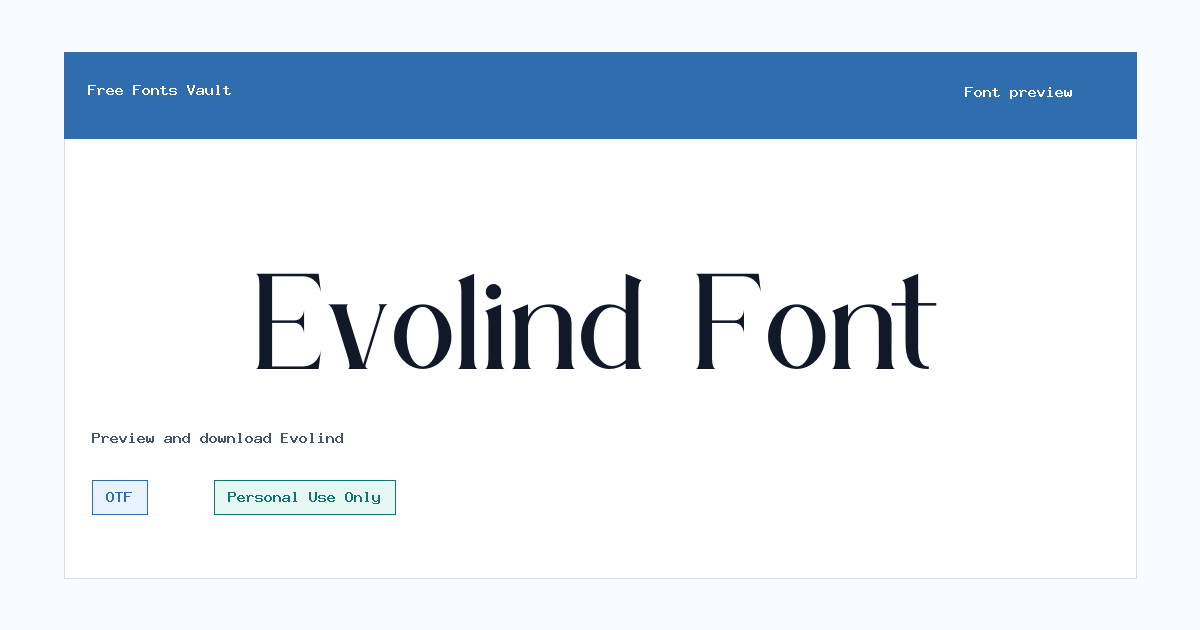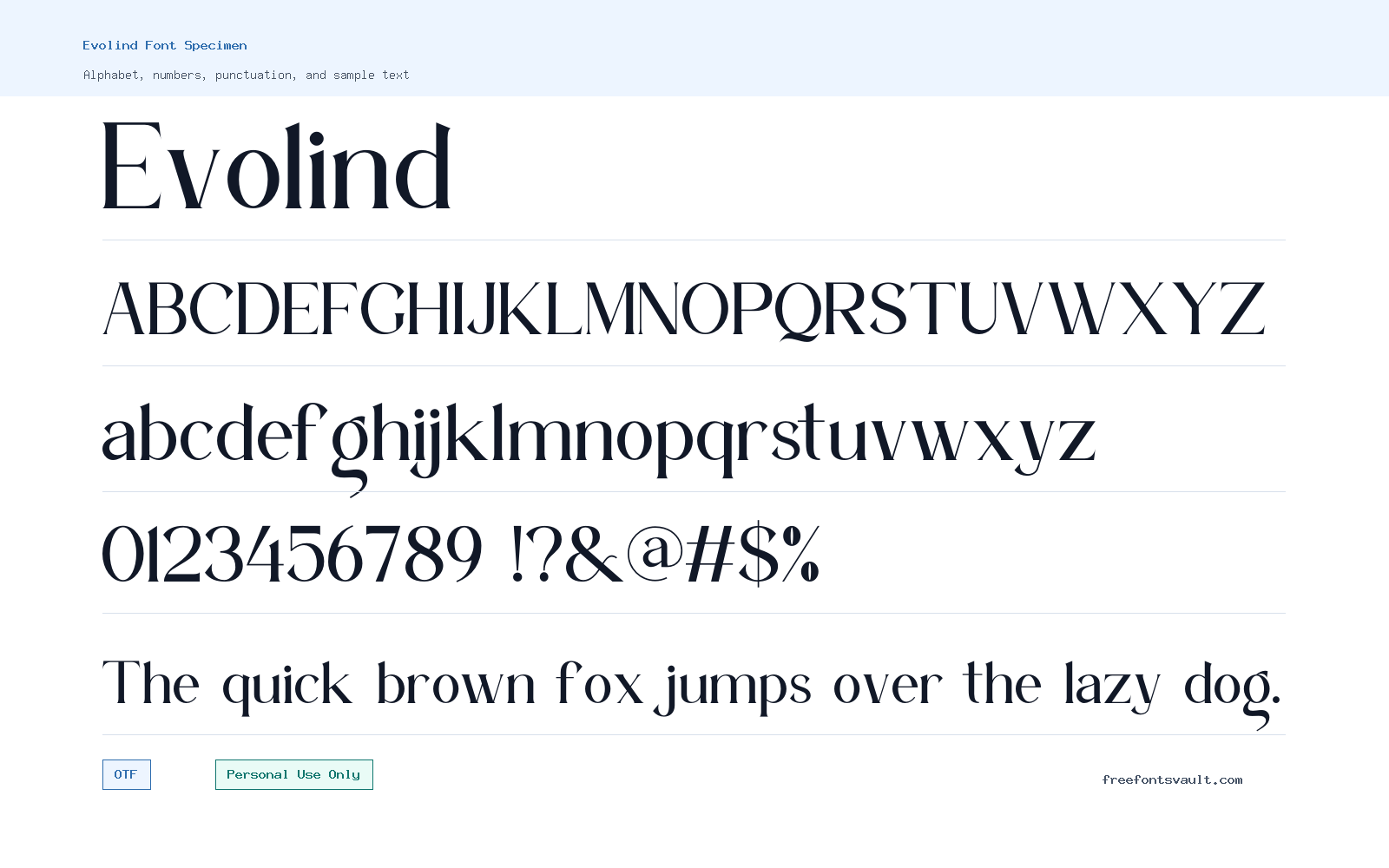
Evolind
Evolind Font
• Designer ErmediaStudio
Evolind font.
Evolind is a serif font with a polished, decorative feel that works best when the text is meant to be noticed. Use the preview tool to test your own words before downloading, especially for names, titles, and short display lines.
About Evolind Font
Evolind has the kind of serif style that suits display typography more than long reading. Its letterforms are better used where shape and mood matter: headings, invitation text, logo drafts, quote graphics, boutique labels, social posts, and editorial-style titles. Because only the regular style is included, the font is easiest to use when you let spacing, size, and contrast do the layout work instead of relying on bold or italic versions.
For the best result, test Evolind with the exact wording you plan to use. Some decorative serif fonts look elegant in a single word but feel busy in a full sentence, so try it at several sizes before committing. It can pair well with a clean sans serif for body copy, captions, or navigation text. Keep the serif font for the main visual line, then use the simpler companion font for details that need to be read quickly.
• Serif display style suited to short, eye-catching text
• Headlines, name designs, invitations, and quote graphics
• Branding mockups, packaging concepts, posters, and social media visuals
The designer is listed as ErmediaStudio. No foundry details or designer website are included with the font information.
Who designed Evolind?
Evolind is credited to ErmediaStudio.
What is Evolind best used for?
It is best for short display text such as titles, invitations, posters, social graphics, packaging concepts, and logo mockups. It is not the safest choice for long paragraphs.
How should I pair Evolind with other fonts?
Use Evolind for the main title or accent text, then pair it with a clean, simple font for body copy and small details. This keeps the design readable while letting Evolind stand out.